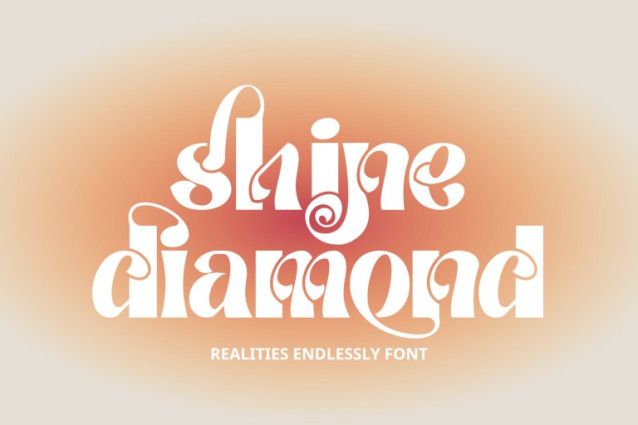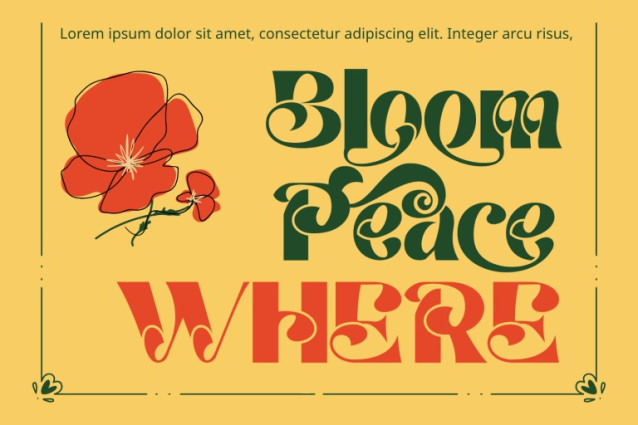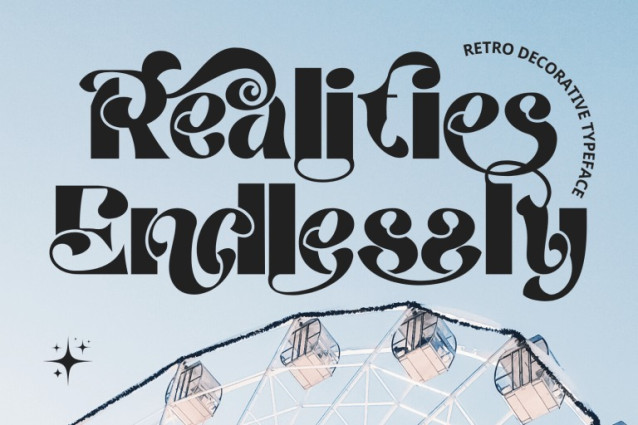
Realities Endlessly Font
Realities Endlessly – Elegant Font, an elegant Decorative Sans-Serif Display Font crafted to bring sophistication and artistic charm to your designs. Its graceful curves, bold contrasts, and ornamental details make it perfect for luxurious branding, editorial titles, invitations, and high-end packaging.
🔤Features:
Uppercase & Lowercase Letters
Around 100 Special Ligatures for creative typography
Numerals & Punctuation for versatile use
Accented Characters supporting multiple languages
🔤About 100 ligatures combined with Stylistic Alternates Font: